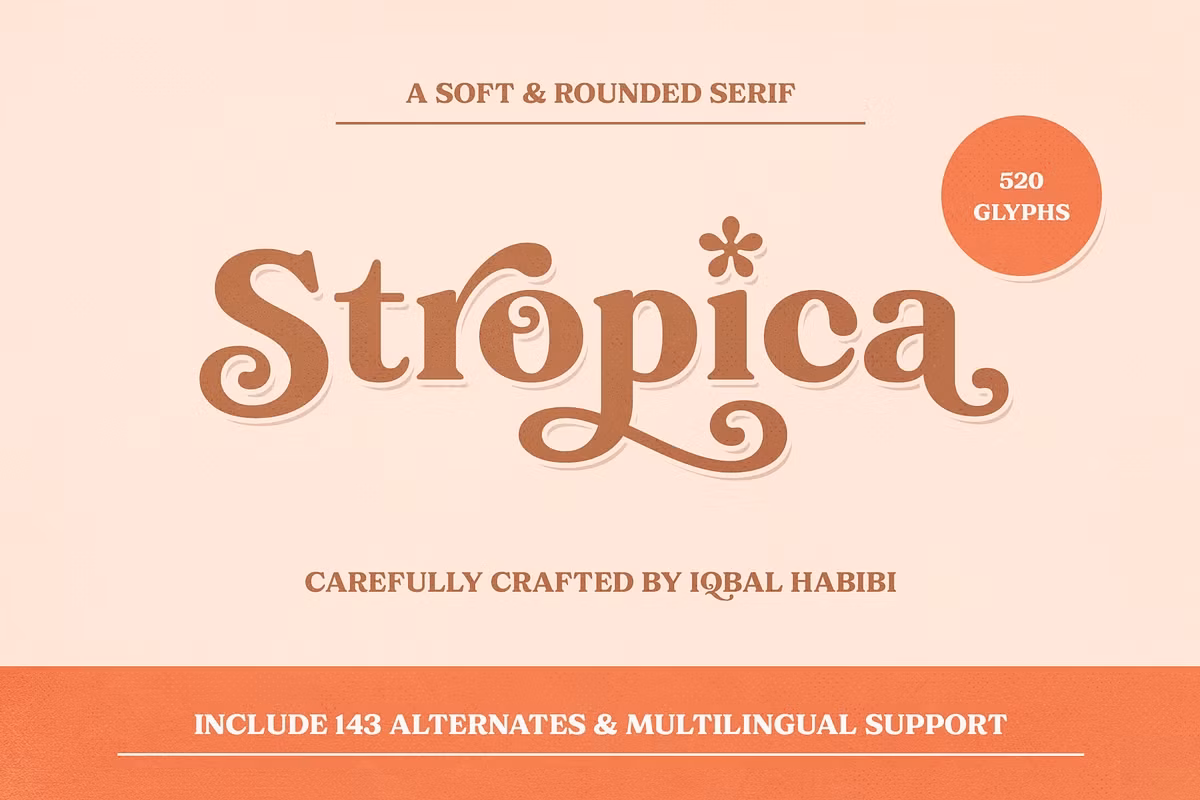
Stropica - Retro Vibes Serif Font Free Download is a stylish, vintage-inspired typeface that captures the essence of retro design. With its bold serifs, geometric shapes, and playful character, this font is perfect for projects that need a nostalgic, yet modern touch. Whether you're working on branding, posters, packaging, or social media graphics, Stropica adds a fun and eye-catching flair to any design.
The font combines a clean, vintage aesthetic with contemporary proportions, making it suitable for both headline text and body copy. It’s ideal for designs that need to evoke the spirit of the '60s and '70s, while still maintaining a fresh, updated look.